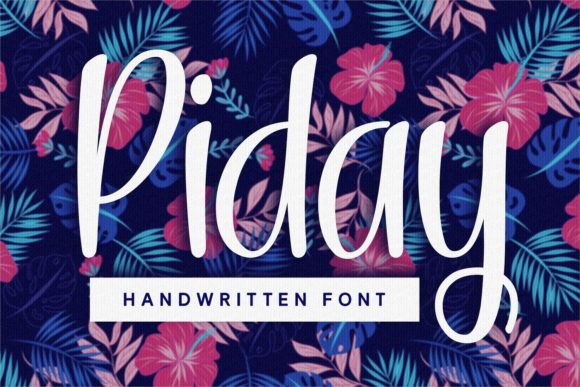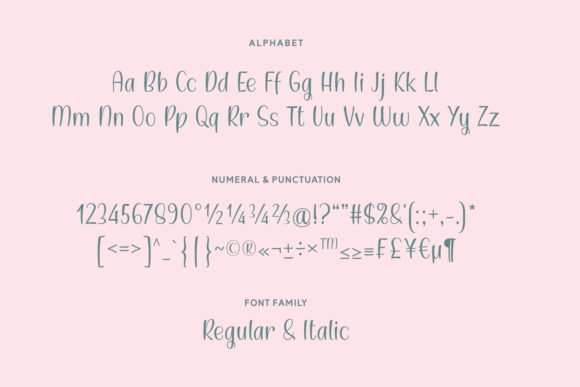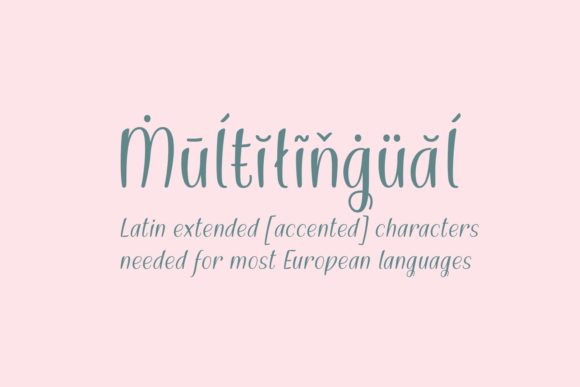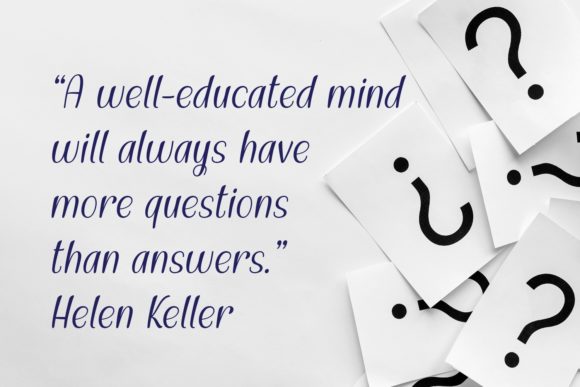
Piday Font
About Piday Font
Piday is a charming and versatile handwritten font that adds a warm and joyful touch to your projects. With its sweet and playful style, it brings a sense of romance and happiness to any design.
Whether you’re creating invitations, greeting cards, logos, packaging, or social media graphics, Piday can transform your ideas into beautiful works of art. Its all-around nature makes it suitable for a wide range of creative projects.
The warm and romantic aesthetic of Piday makes it perfect for designs that aim to evoke feelings of love, affection, and positivity. It’s an excellent choice for wedding invitations, anniversary cards, or any design that wants to convey a sense of romance and charm.
The jolly and playful aspect of Piday adds a fun and lighthearted touch to your designs. It’s particularly well-suited for projects targeting a younger audience or those that want to create a cheerful and whimsical atmosphere. The font’s friendly and approachable style creates a sense of joy and liveliness.
Piday offers endless variations and creative possibilities. Its flexibility allows you to experiment with different letterforms, ligatures, and swashes, giving your designs a unique and personalized look. It encourages you to have fun and explore your creativity.
With its handwritten quality, Piday brings a personal and authentic touch to your designs. It adds character and warmth, making your projects stand out and resonate with your audience.
In summary, Piday is a delightful font that infuses warmth, joy, and versatility into your creative projects. Its sweet and playful style, combined with its endless variations, allows you to create captivating works of art that bring smiles to people’s faces. So have fun with Piday and let your imagination soar!